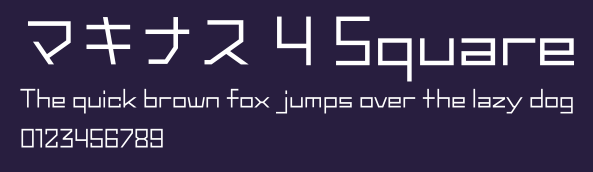
マキナス 4 Square Preview
• Font Name: マキナス 4 Square
• Font ID: マキナス 4 Square
• Full Font Name: マキナス 4 Square
• PostScript Name: Makinas-4-Square
• Character Count: 9804
About マキナス 4 Square.otf
マキナス 4 Square.otf is a modern, elegant sans-serif font designed for ultimate readability and visual harmony. Perfect for branding, headlines, web design, and print materials.